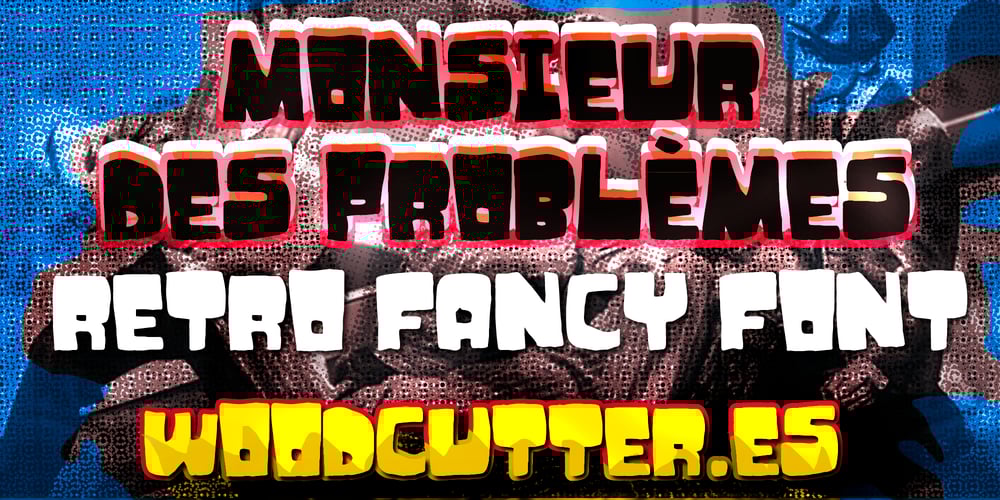
Monsieur des problemes Font Family was designed by Jordi Manero and published by Woodcutter. Monsieur des problemes contains 1 styles and family package options. The commercial typeface with its irregular appearance is an artistic expression,With uneven strokes and slightly chaotic shapes, it exudes authenticity and impression.Perfect for titles that capture attention and stand out from the crowd,Complete with accents and punctuation marks, it’s ready to make your designs proud.This typography brings originality and freshness, an unmistakable style,A tribute to creativity that will make your projects worthwhile.